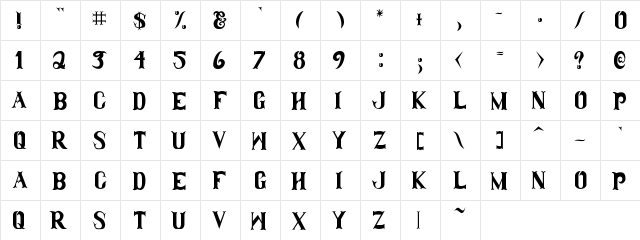
Clam Dip Regular
Design Context for Clam Dip Typeface
Clam Dip is a composed and adaptable typeface that performs quietly and consistently across a wide range of design contexts.